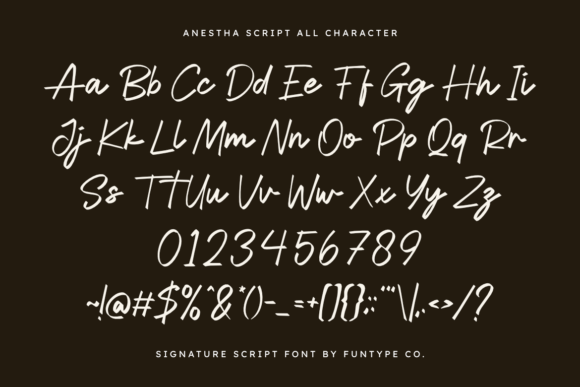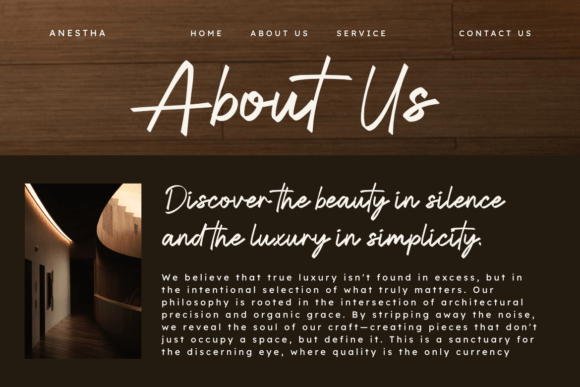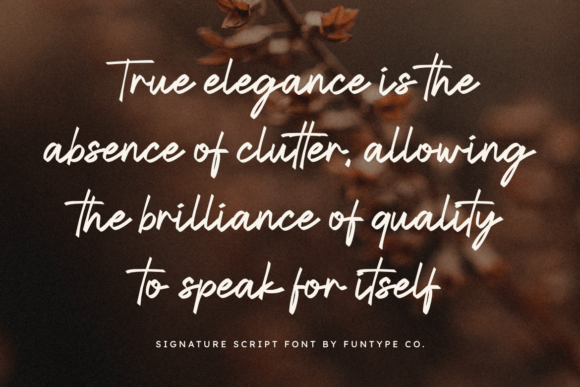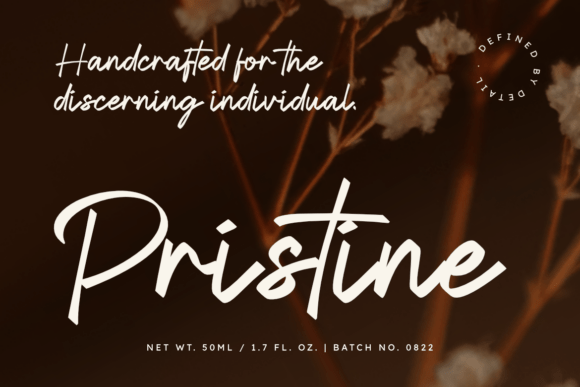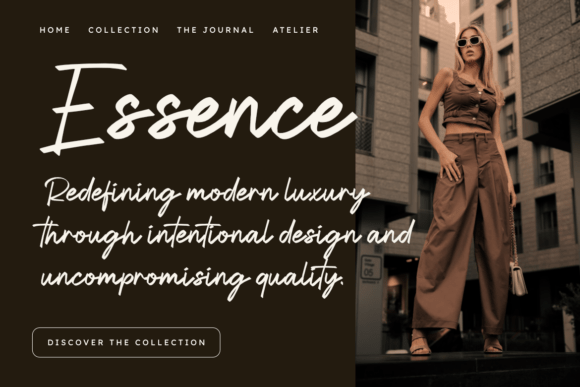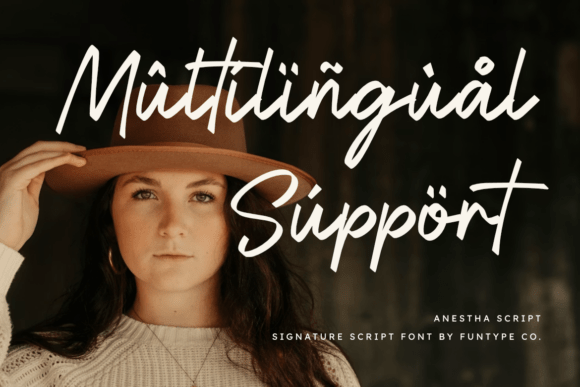
Unleashing Your Signature Style with Anestha Script Font
Have you ever stared at a blank canvas, waiting for the perfect idea to strike? You’re not alone. As creatives, we’ve all been there, searching for that elusive spark that sets our designs apart. For designers, the right font can be the game-changer, elevating a project from good to great. Enter Anestha Script Font, a bold, modern signature font that brings a personal and stylish touch to your designs.
With its natural handwriting flow, Anestha Script Font is perfect for logos, branding, photography watermarks, and invitations. Its versatility and charm make it a valuable addition to any designer’s toolkit. Whether you’re working on a high-end campaign or a personal project, this font is sure to leave a lasting impression.
Anestha Script Font Key Features
- Font Family: Anestha Script
- Unique Characteristics: Elegant, cursive script with a touch of modernity, perfect for titles, headings, and creative projects
Anestha Script Font Review
Overall, I found the Anestha Script Font to be a unique and elegant choice for various design projects. The font has a beautiful, flowing quality that can add a touch of sophistication to your designs.
- Beautifully crafted letterforms that evoke a sense of elegance and refinement.
- Highly versatile font that can be used for a wide range of design projects, from logos to invitations.
- Works particularly well for designs that require a sense of whimsy or playfulness, such as children’s books or advertisements.
- Good for use in smaller font sizes, as the script style helps the text stand out.
- May not be the best choice for designs that require a more formal or corporate tone.
- Some letters can be difficult to read at larger font sizes, particularly for those with vision impairments.
- Not ideal for use in large blocks of text, as the script style can become overwhelming.
Overall, I would recommend the Anestha Script Font for designers looking to add a touch of elegance and sophistication to their projects. While it may have some limitations, the font’s unique qualities make it a great choice for the right design.
Anestha Script Font Practical Application Guide
- Use the font’s elegant and cursive style to create eye-catching headings and titles.
Anestha Script Font is ideal for:
- Personalized greeting cards
- Custom typography for branding and logos
- Decorative text effects for presentations and documents
Tips for Getting the Most Out of Anestha Script Font
Experiment with different font sizes, colors, and arrangements to create unique and visually appealing text effects.
Combine Anestha Script Font with other fonts to create a
Alternatives to Anestha Script Font
Great Vibes is a beautiful, elegant script font perfect for designing invitation cards, wedding invitations, and other formal documents. It has a classic feel and is highly legible.
Compared to Anestha Script Font, Great Vibes has a more refined and sophisticated look. It is ideal for formal events and is suitable for use in both print and digital media.
Carolyna Pro is a modern script font that is perfect for designing logos, branding materials, and packaging. It has a unique, hand-painted feel and is highly customizable.
Compared to Anestha Script Font, Carolyna Pro has a more playful and creative look. It is ideal for modern brands and is suitable for use in both print and digital media.
Alex Brush is a elegant script font that is perfect for designing invitations, greeting cards, and other formal documents. It has a classic feel and is highly legible.
Compared to Anestha Script Font, Alex Brush has a more refined and sophisticated look. It is ideal for formal events and is suitable for use in both print and digital media.
Dancing Script is a beautiful, elegant script font perfect for designing invitation cards, wedding invitations, and other formal documents. It has a classic feel and is highly legible.